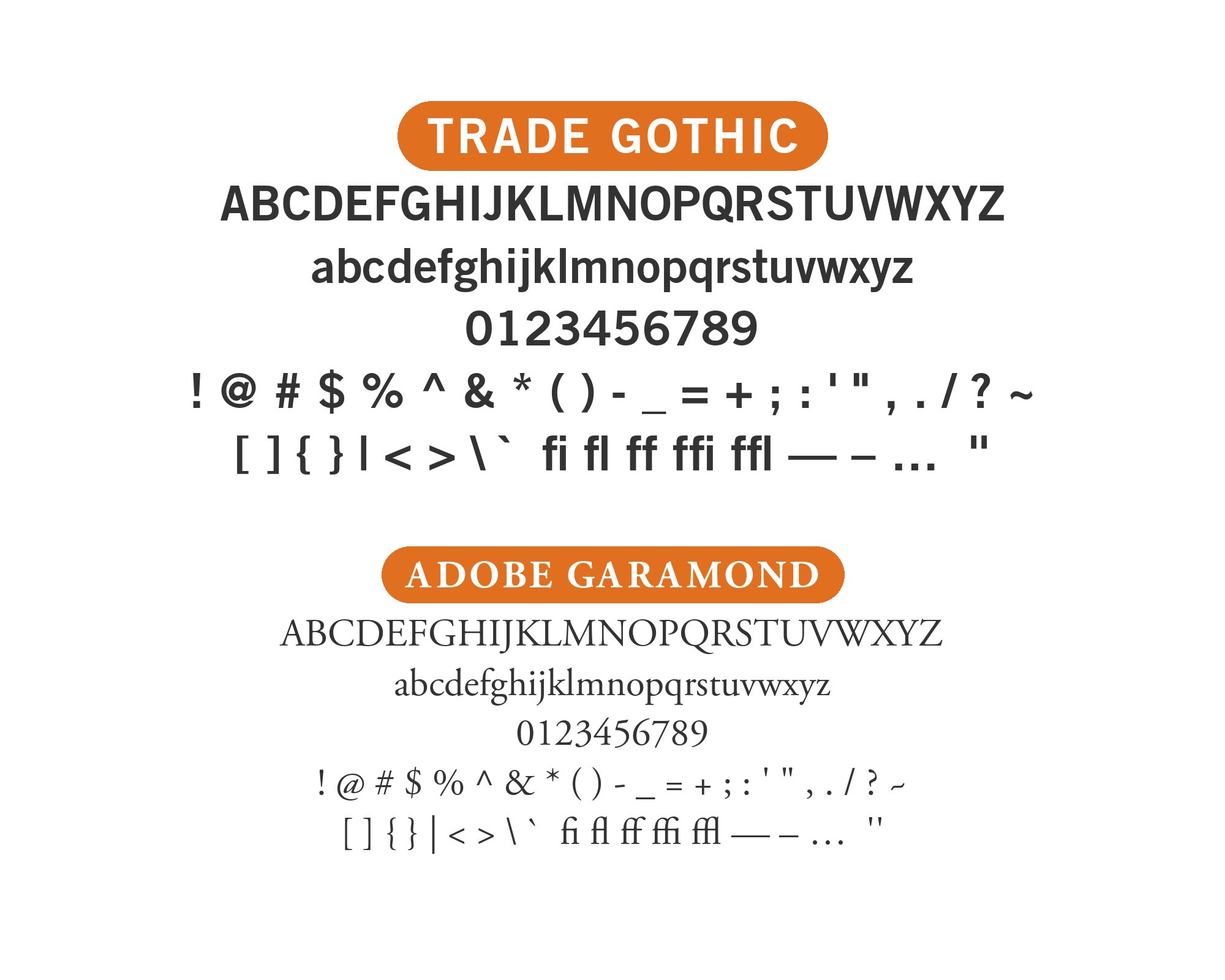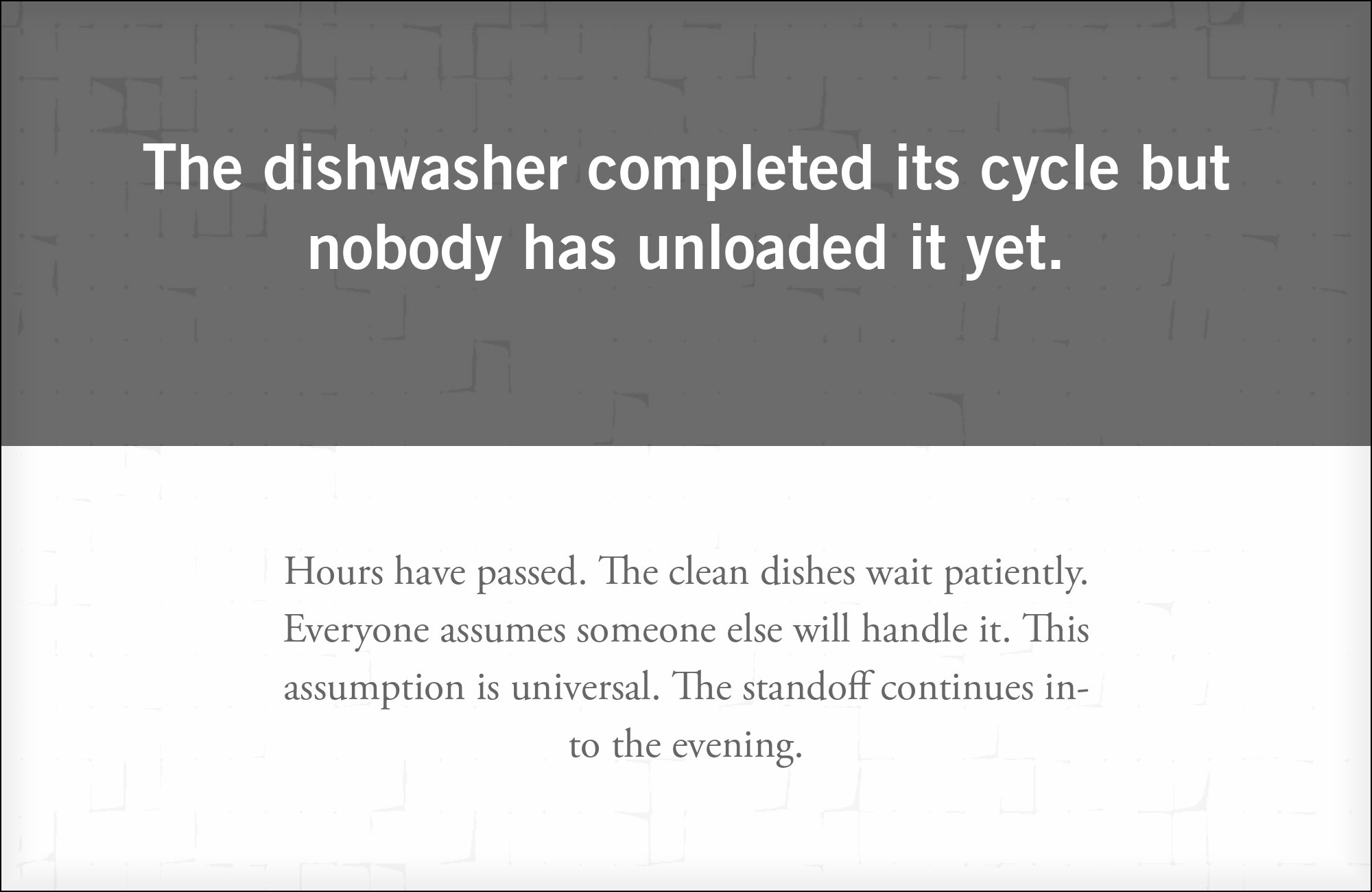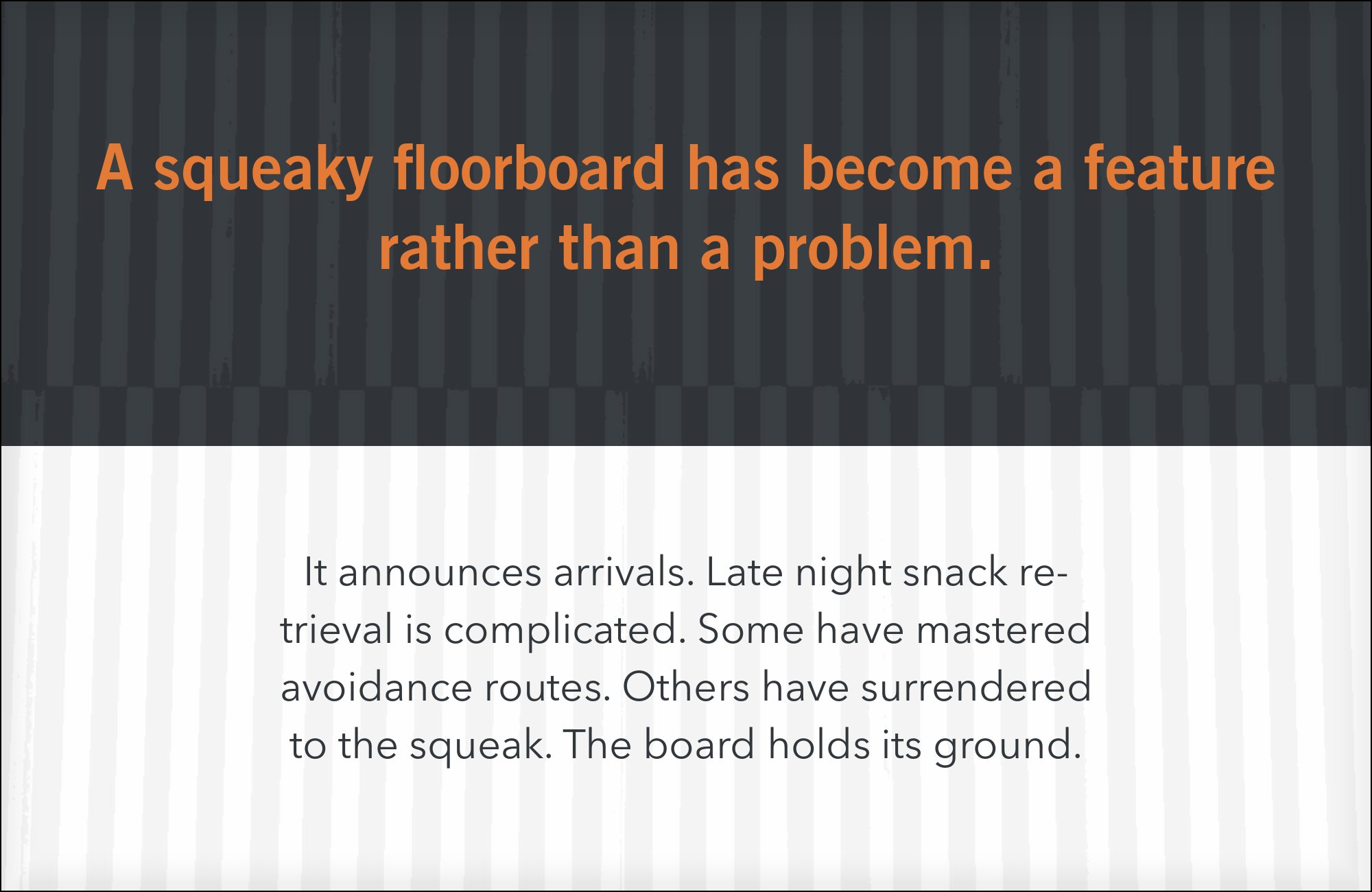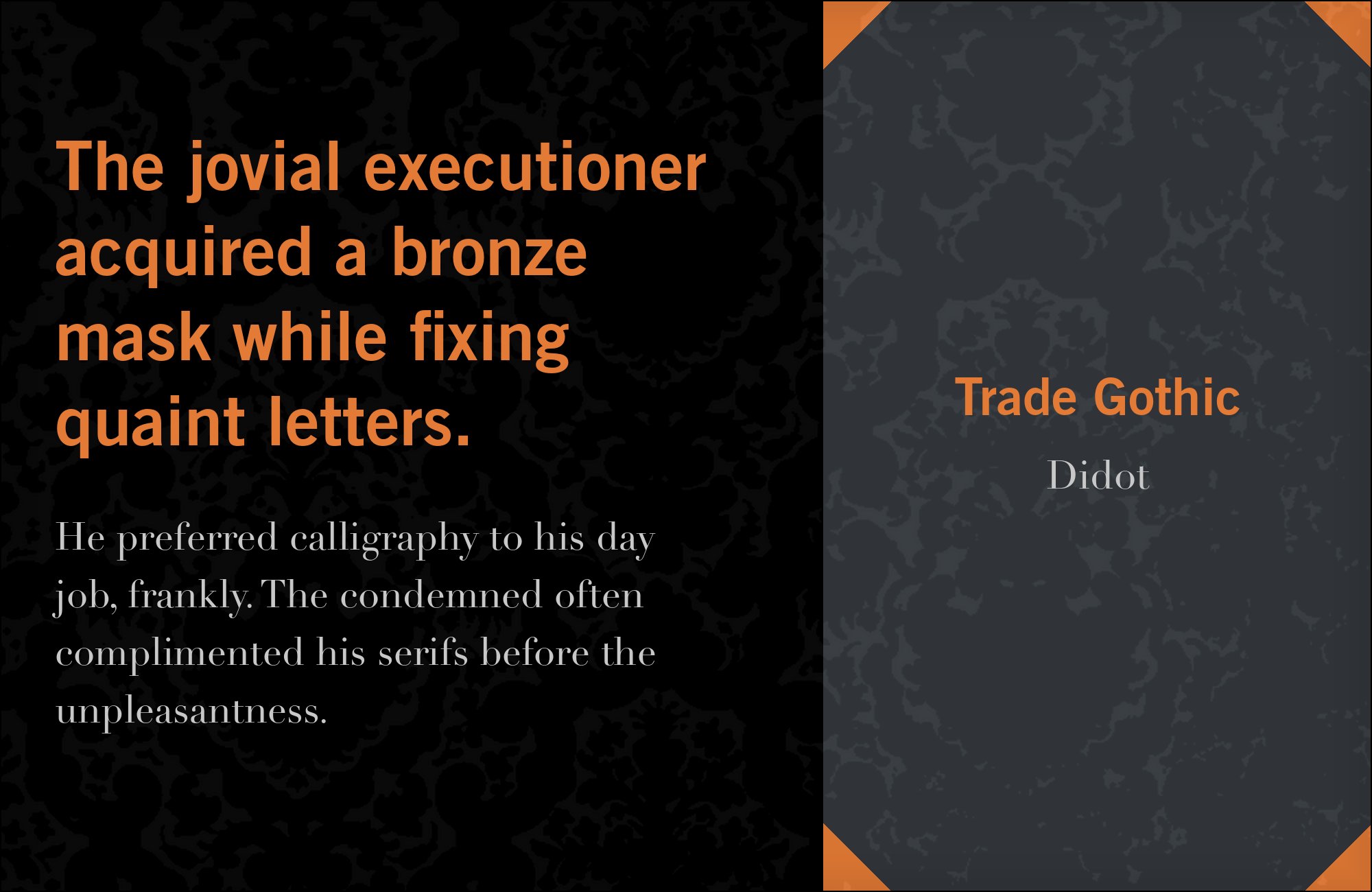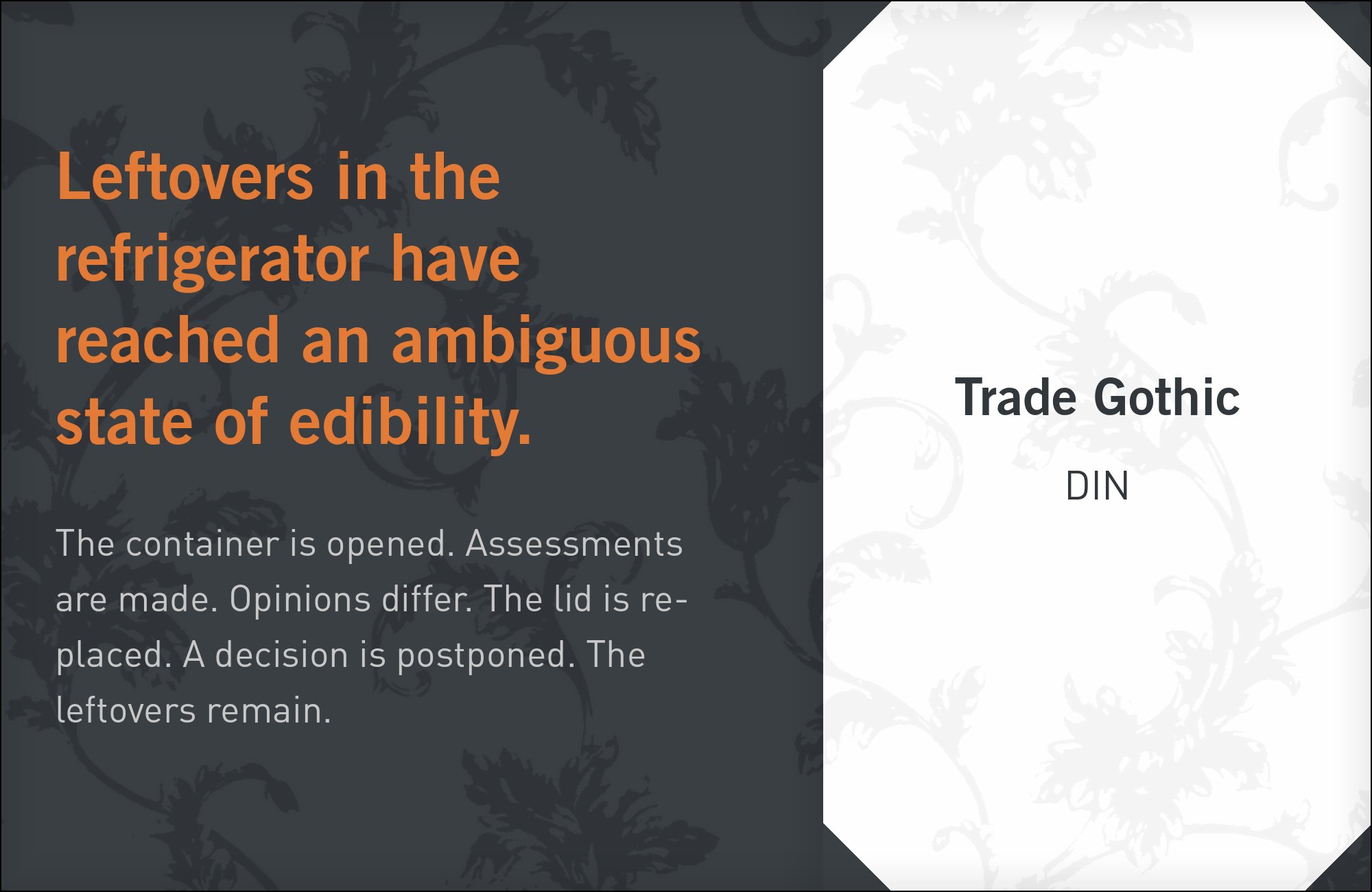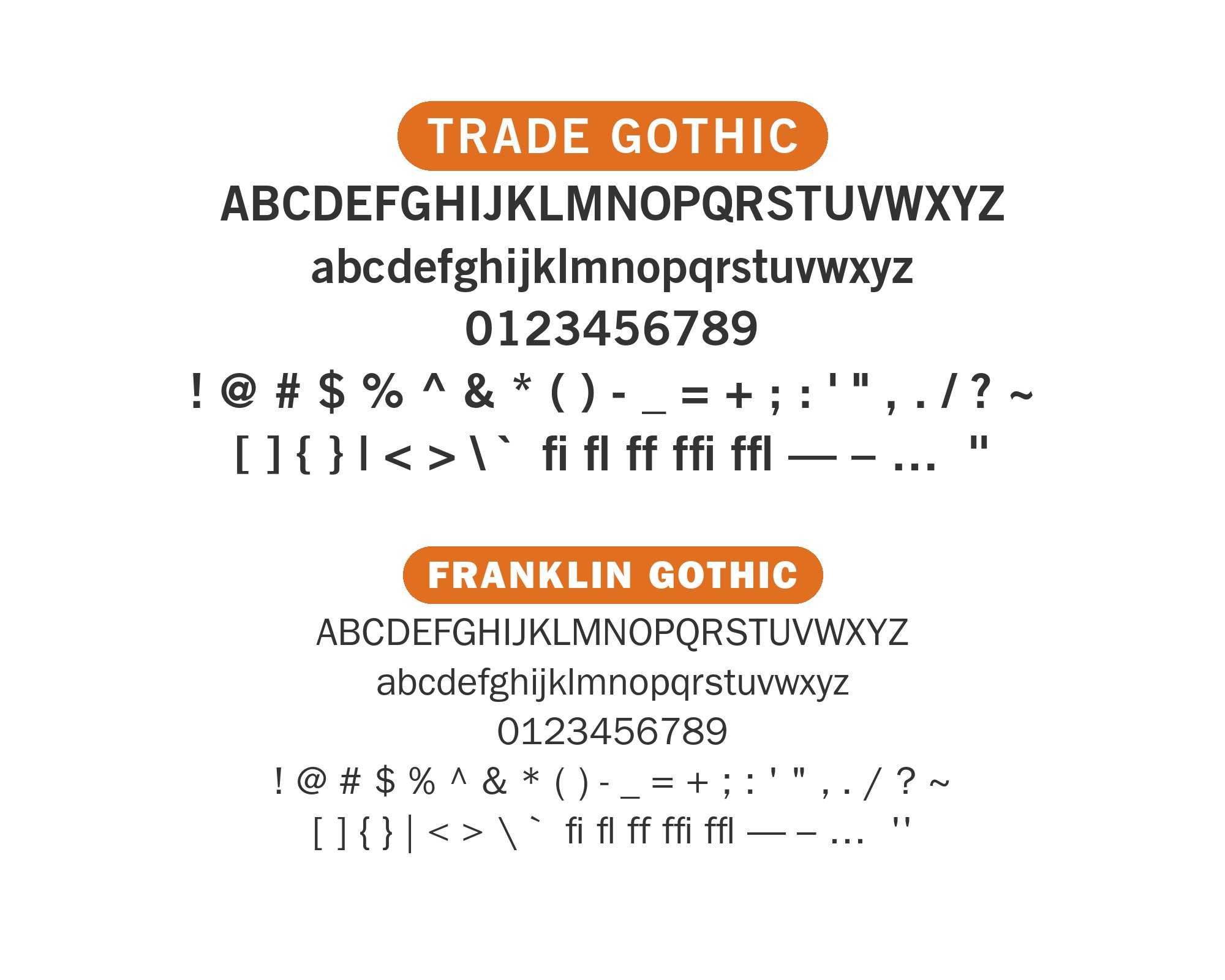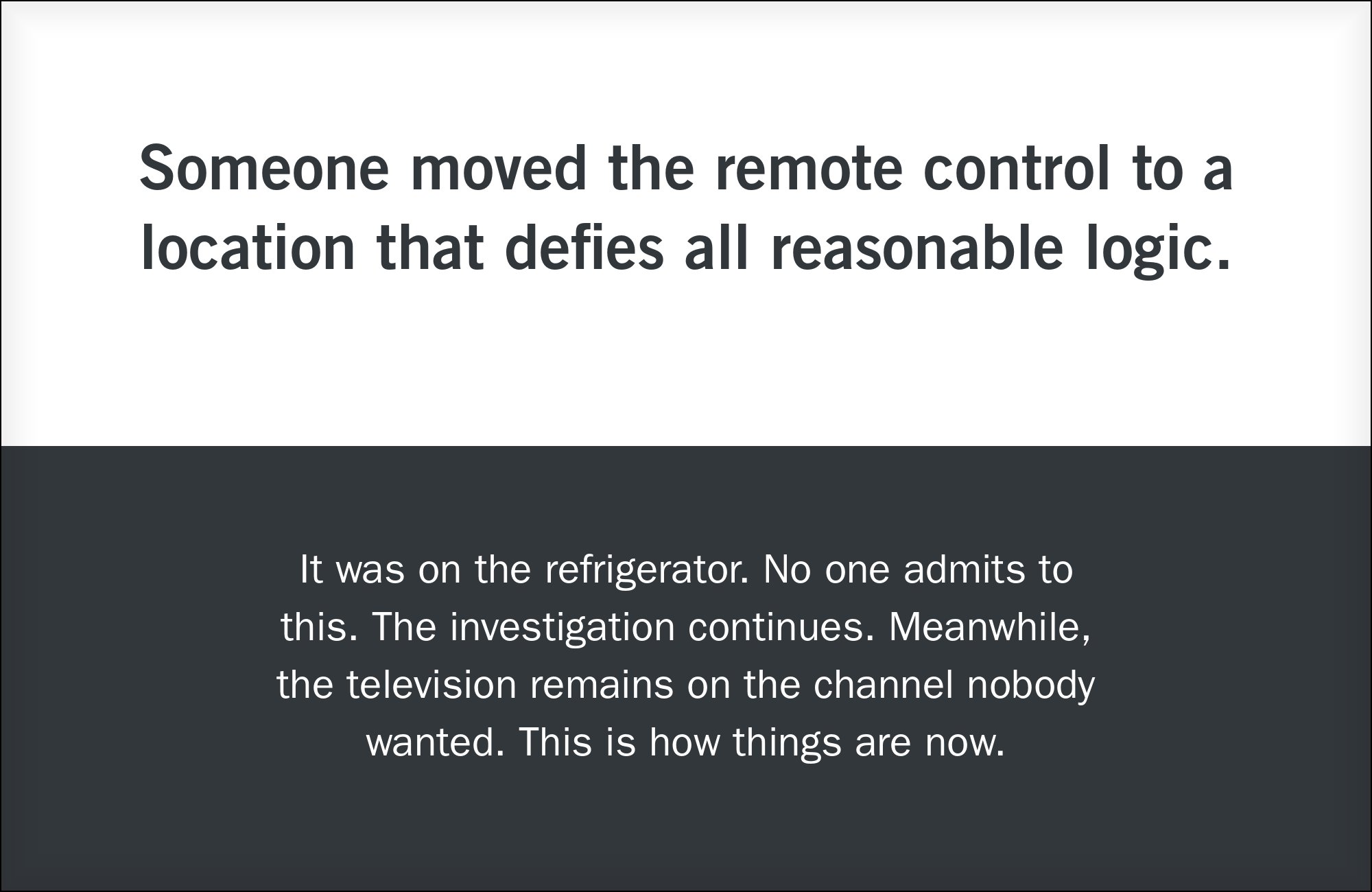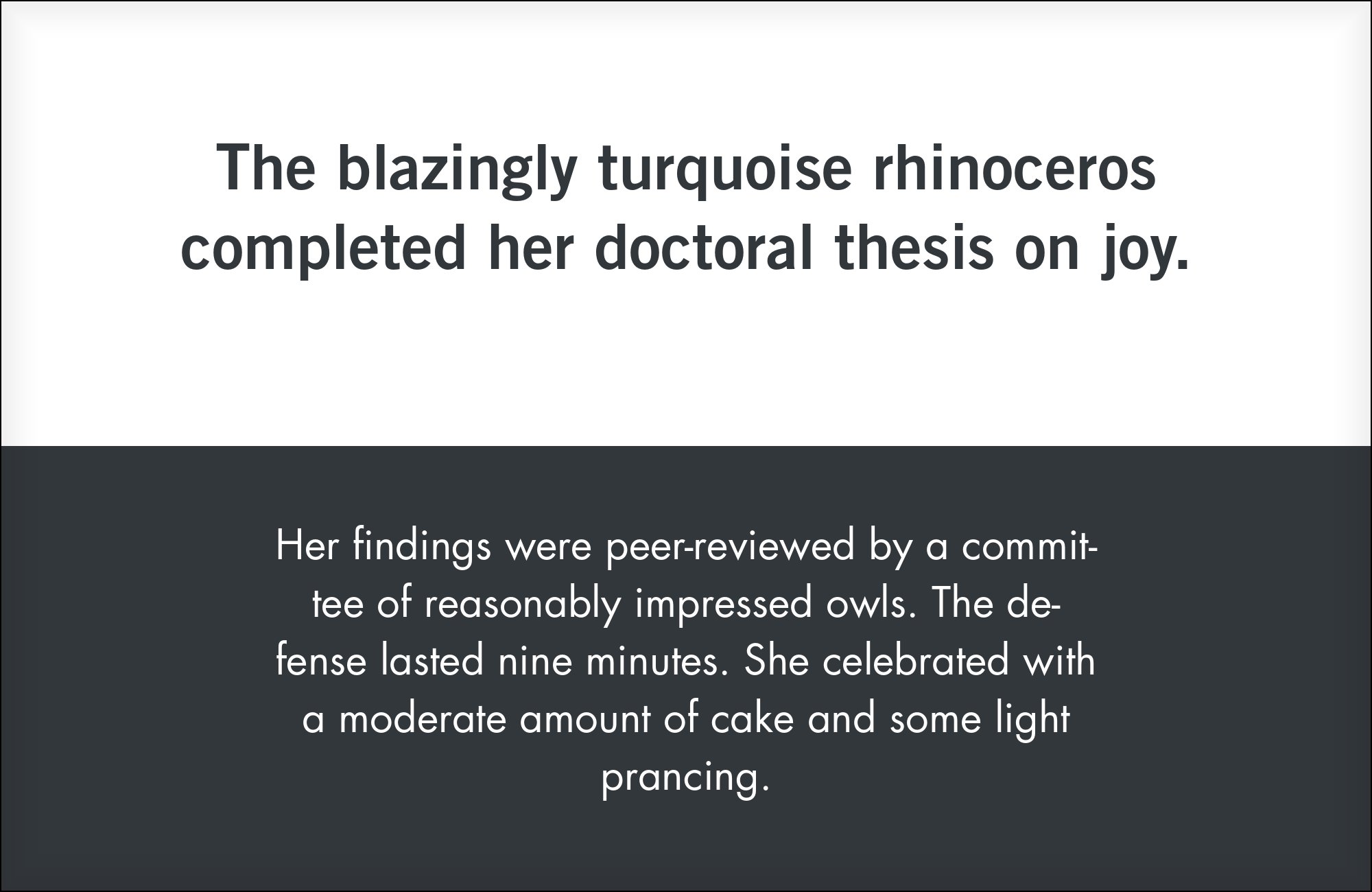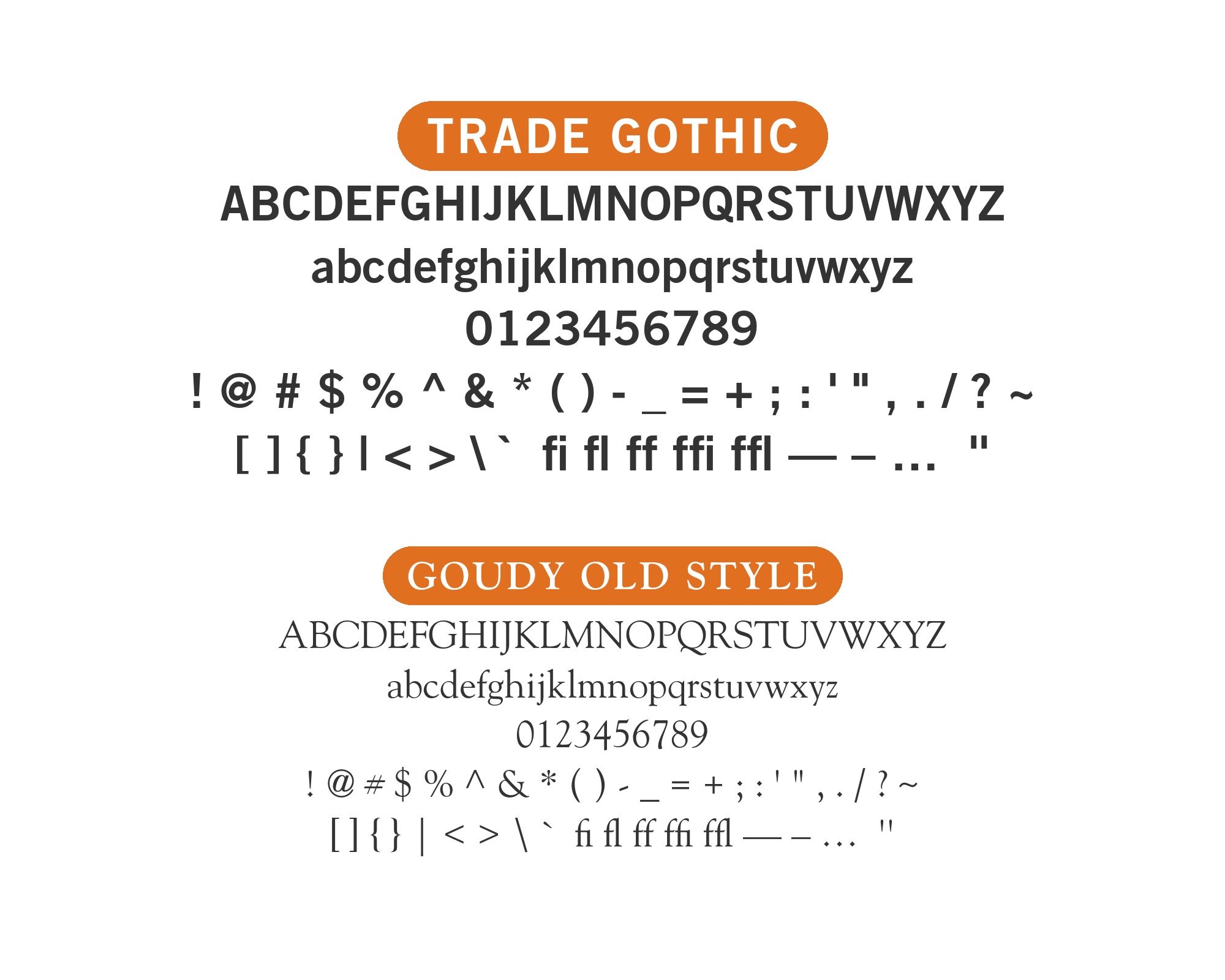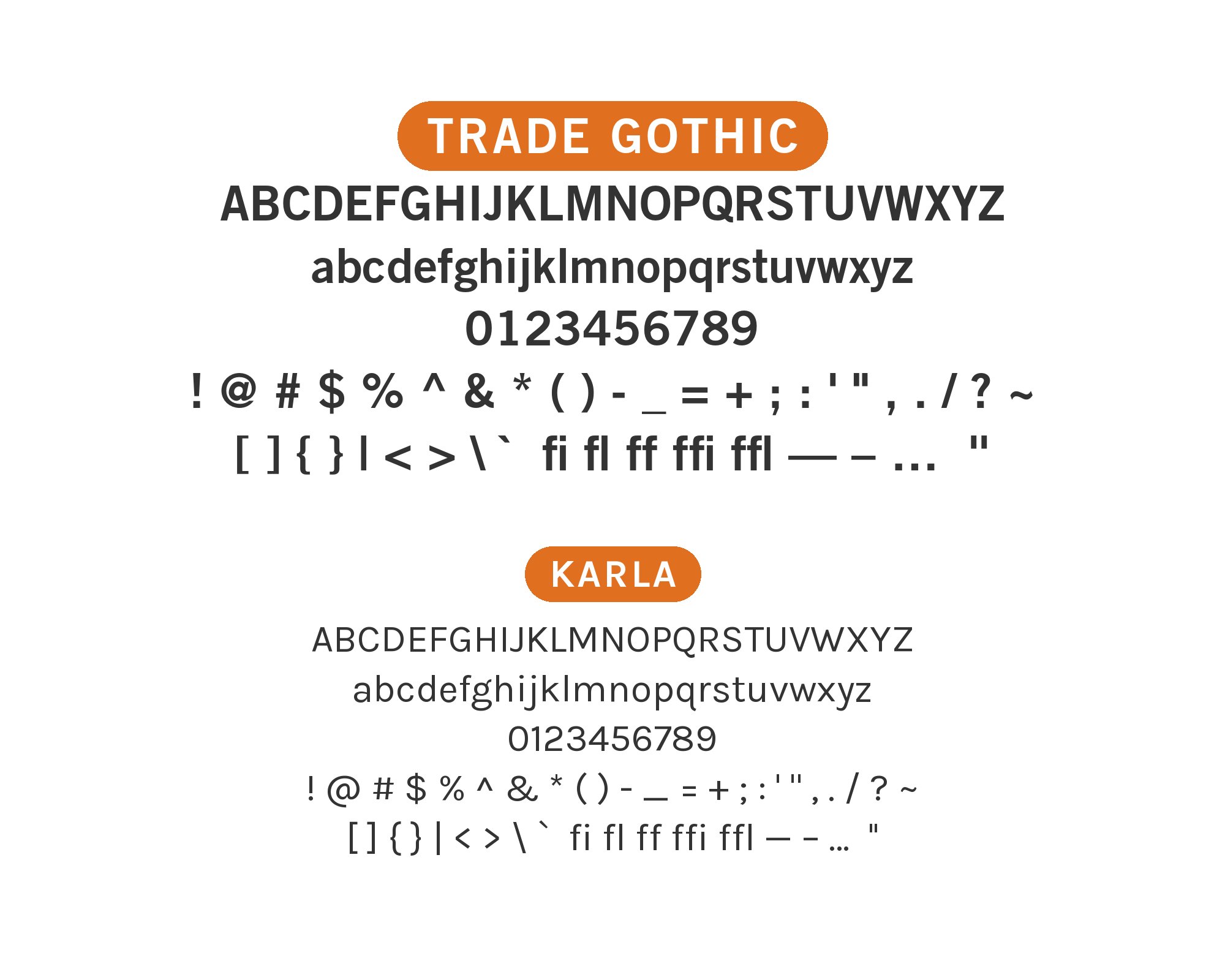
Trade Gothic pairs great with Egyptienne, Optima and Didot. All 16 pairings are shown below in real rendered specimens, with the reason each one works.
What fonts go with Trade Gothic? Explore the pairings below, each with a reason it works.
Trade Gothic is a working typeface, not a novelty. These combinations draw on published examples, brand typography guides, and my own design judgment. Here are fonts that pair well with Trade Gothic.
1. Egyptienne
Typewolf’s own curated pick: a slab serif with the same no-nonsense, business-document sturdiness as Trade Gothic, so headline and body feel cut from the same practical cloth rather than two competing moods.
A humanist sans with flared, brush-like stroke endings — neither serif nor pure geometric — gives Trade Gothic’s plain, condensed commercial forms a warmer, more crafted counterpoint.
3. Didot
A high-contrast didone brings fashion-editorial drama against Trade Gothic’s flat, utilitarian grotesque weight — display glamour over workmanlike text.
4. Source Serif 4
A moderate-contrast text serif with a generous x-height and sturdy, bracketed strokes anchors body copy while Trade Gothic’s condensed cuts handle labels and navigation. Clemson’s brand guide places Source Serif Pro among alternatives in its Trade Gothic Next system. Source Serif 4 is Adobe’s successor to Source Serif Pro, so this is an updated take on that pairing.
5. Adobe Garamond
An old-style book serif under Trade Gothic Next’s narrow, sharp-cornered sans gives formal documents (white papers, reports, journals) a traditional-authority-meets-modern-efficiency split between long text and short display.
A quiet, highly legible book serif lets Trade Gothic’s condensed, commercial voice stay the only “loud” element on the page, a pairing Fonts In Use records on recent book covers.
7. Futura
Two utilitarian sans faces, Futura from 1927 and Trade Gothic from 1948, from different design logics — Futura’s geometric circles against Trade Gothic’s tighter, more mechanical grotesque proportions — appear together across multiple vintage projects in the archive, and independently show up as a real co-usage pair on live sites tracked by Typ.io.
8. Franklin Gothic
Two American grotesques, Franklin Gothic from 1902 and Trade Gothic from 1948, used together instead of a contrasting serif — it keeps headline and supporting text in one plain, unpretentious voice rather than adding stylistic drama; seen combined on a 1964 record sleeve.
9. Karla
Karla is a grotesque sans with open apertures and a friendly, slightly informal warmth, softening Trade Gothic’s tighter, more clipped commercial character when the two share a page. The looser counters keep small UI text calm and legible rather than severe, making Karla a reasonable second voice for interfaces that need Trade Gothic’s authority up top but not throughout.
A tightly engineered, technical grotesque with an industrial, road-sign character gives Trade Gothic’s commercial condensed forms an even more systematic partner — real sites reach for this pair when a project wants one utilitarian, engineered voice instead of a serif contrast.
11. Merriweather
A screen-optimized serif with sturdy, generous strokes stays comfortable in long-form body copy at small sizes, while Trade Gothic’s tight condensed cuts stay reserved for headlines, labels and navigation.
12. Avenir Next
A geometric humanist sans with rounder, more open counters than Trade Gothic’s tighter commercial cut gives a brand a warmer, friendlier second voice alongside Trade Gothic’s harder edge, without resorting to a serif at all.
13. PT Serif
PT Serif, a transitional serif, brings even color and a generous x-height built for both print and screen. CUNY’s journalism brand guide uses Trade Gothic for titles and headlines. It names PT Serif as its preferred option for text and charts, a clear division of labor for this pair.
14. Zilla Slab
Zilla Slab pairs bracketed rectangular serifs with a slightly humanist warmth in its curves and italic, giving Trade Gothic’s plain condensed grotesque a sturdier, more structural counterpart than a pure old-style serif would. Babson College uses Trade Gothic Condensed with PMN Caecilia and recommends Zilla Slab as Caecilia’s substitute. The weight and proportion of the two systems differ enough to read as a deliberate serif/sans split rather than a mismatch.
15. Walbaum
A modern (Didone) serif with crisp, rationalized stroke contrast echoes Trade Gothic’s own no-nonsense, engineered proportions, giving body text a crisp, formal modern-serif voice under commercial, utilitarian headlines.